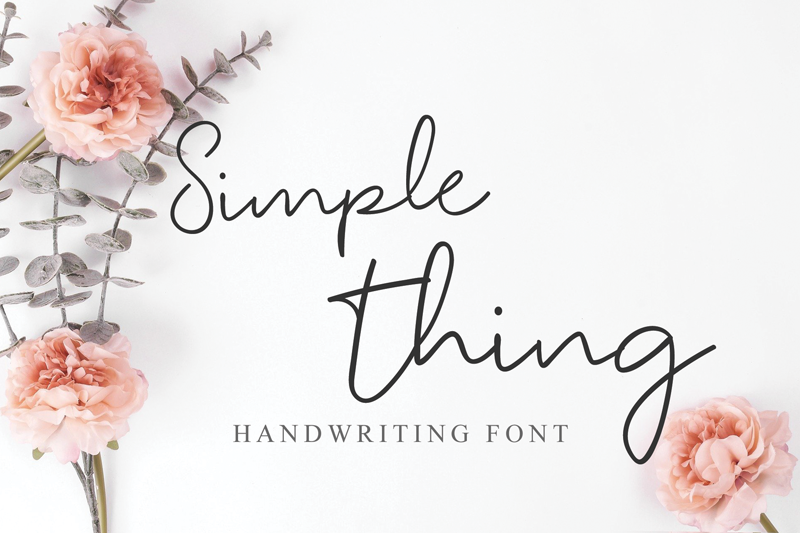
Note of the authorSimple Thing is a well balanced and thin handwritten font. It is defined by beautiful curves and is perfect for fashion branding or editorial designs. Add it confidently to your projects, and you will love the results.